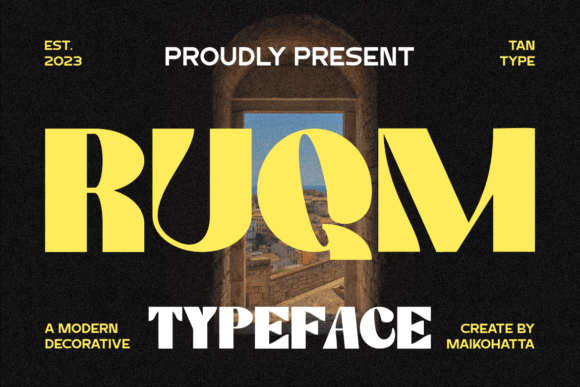
Get ready to embark on an artistic journey with Ruqm Font, the captivating decorative font that ignites the imagination and pushes creative boundaries. Designed by maikofarazhatta, this font is a symphony of energy and abstraction, a testament to modern design principles, offering a visual experience like no other. With its contemporary perspective, it becomes an invaluable tool for designers seeking adventure and creative experimentation.
Ruqm Font embodies the essence of psychedelic style, a fusion of artistic elements, colors, and eye-catching designs. It's the perfect choice for graphic designs, posters, art, and promotional materials that demand attention and create a striking, experimental, or unique visual impact. Embrace the allure of abstract lines, the energy of bold strokes, and the thrill of unconventional letterforms, all harmoniously blended to create a truly mesmerizing masterpiece.
Dive into a world where creativity knows no bounds. Unleash the power of Ruqm Font and let your imagination soar. Experiment with an array of design possibilities, from vibrant posters that command attention to eye-catching social media graphics that spark conversations. Whether you're a seasoned designer or just starting your creative journey, Ruqm Font will become your trusted companion, guiding you towards designs that leave a lasting impression.
Don't settle for ordinary fonts that blend into the background. Embrace the extraordinary with Ruqm Font, the font that ignites passion, fuels innovation, and transforms your designs into unforgettable works of art. Let your imagination run wild and experience the thrill of creating visuals that captivate and inspire.